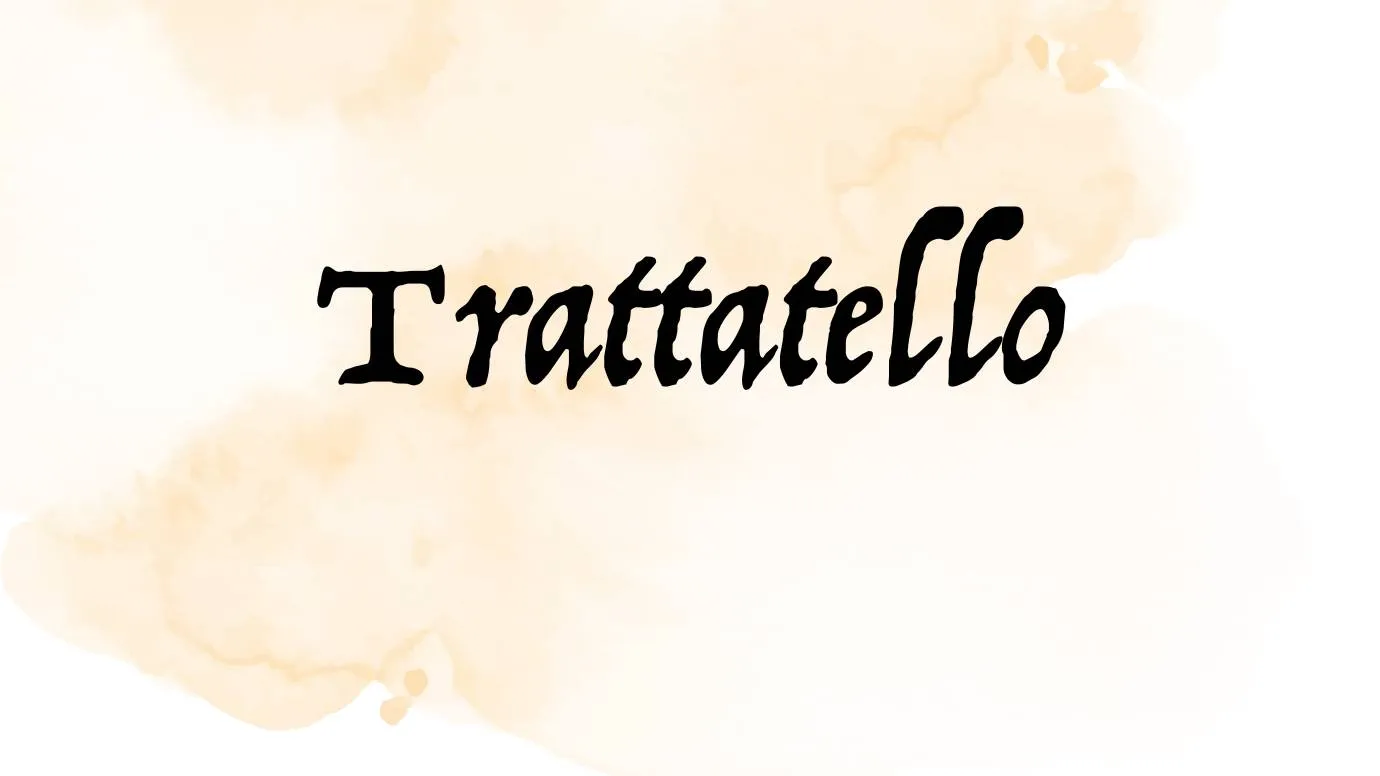
Trattatello Font
We are going to present a very unique typeface named Trattatello Font due to its splendid textures that is belonging to the fancy font family